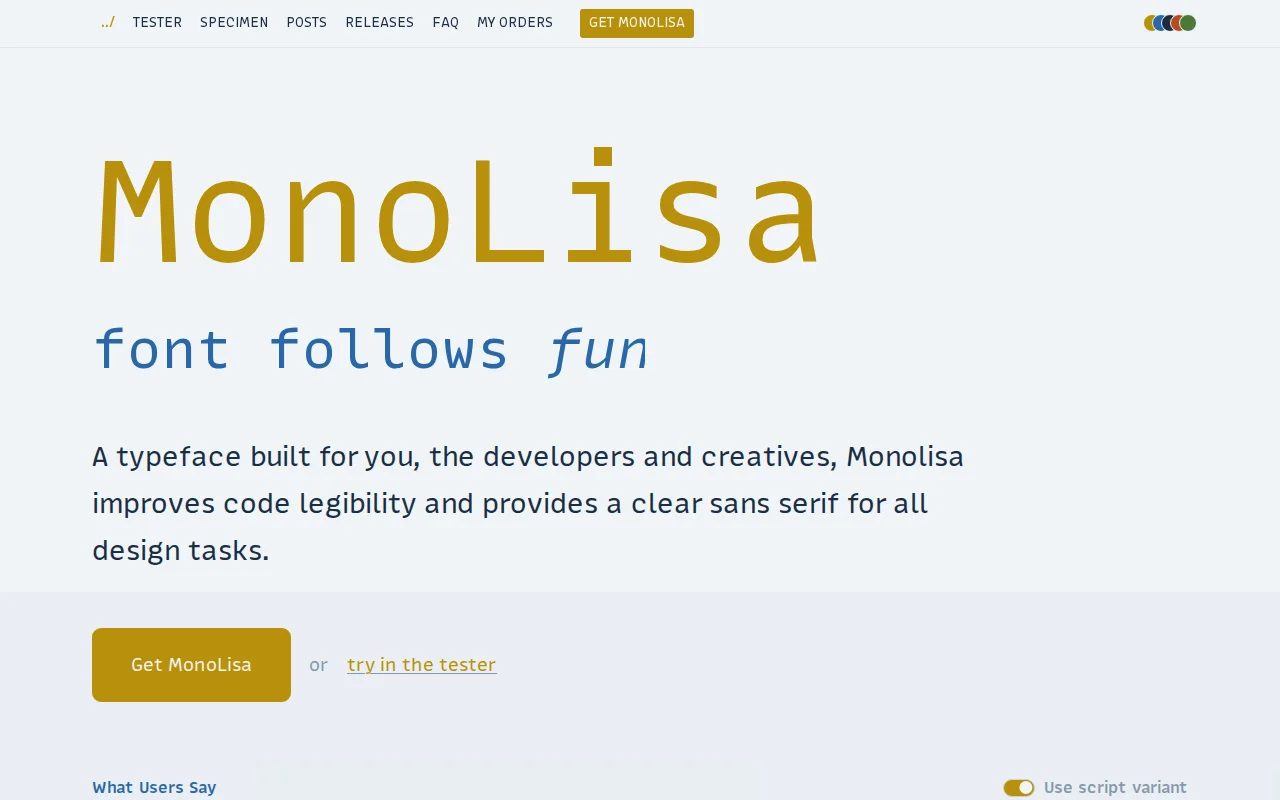
Polished commercial font in a crowded space alongside Fira Code and JetBrains Mono.
Developers and designers seeking premium coding fonts
Since then we've released a variable v2 (2022) and now we're happy to expand the typeface with a new family called MonoLisa Text. The reasoning was to cover *other* use cases beyond coding with this proportional font.